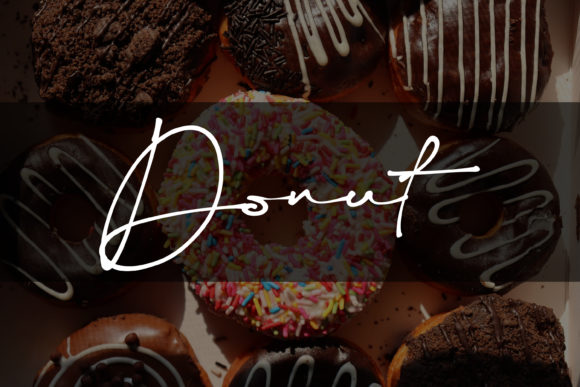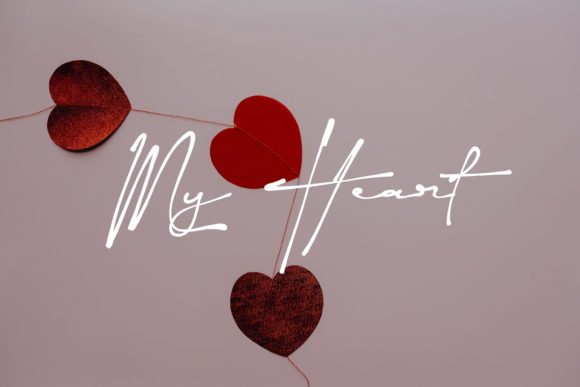
Smooth Font
db-ku.com - Script & Handwritten -- Smooth is a personalized, beautiful and luxurious script font. Featuring characters that dance along the baseline, this font will add a gorgeous spark to any design project that you wish to create!